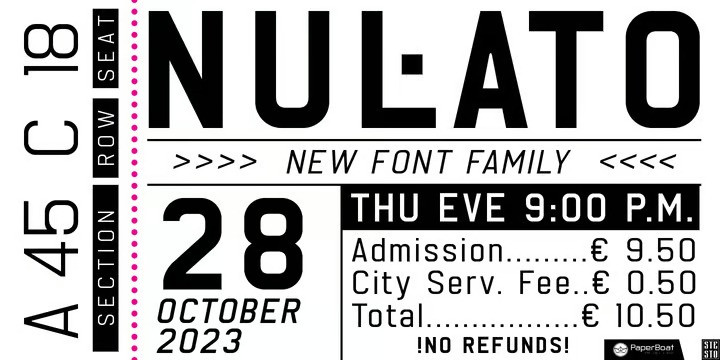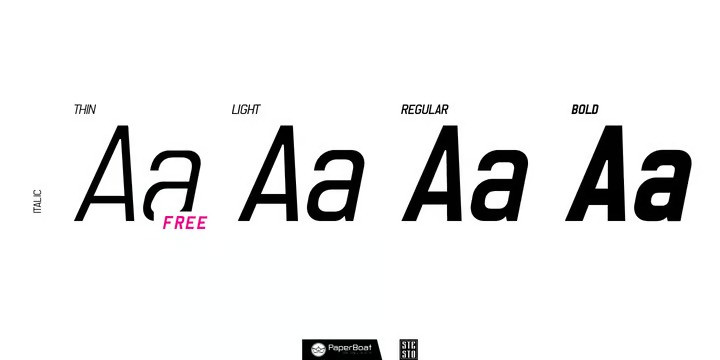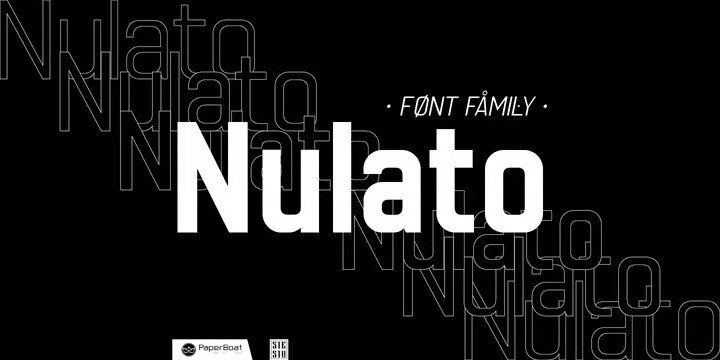
Nulato Font
NULATO Font , my new sans serif, monospace font inspired by the great Alaskan outdoors and the clean shapes of the horizon. The font represents a modern and slick approach to a minimalist trend behind the core of great brand identity practices.
Nulato took a year to develop, from the first sketches to the final 600+ glyphs the process took a significant amount of research and variables. The letters, specific ligatures, and symbols are a full stack.
It was specifically designed with the classic approach to balance and appearance, but with a strongly advocated contemporary characteristic of font design and marks.
NULATO evokes the perception of something familiar, but with that extra, needed for inspiring the new.